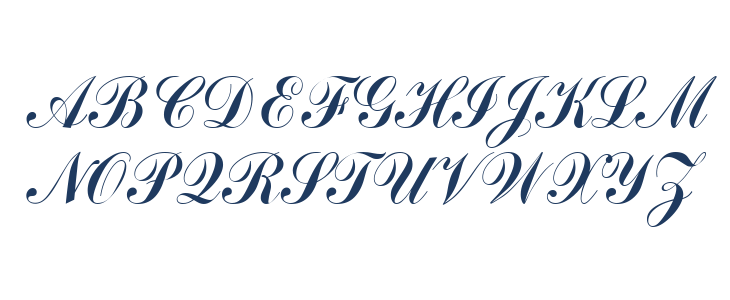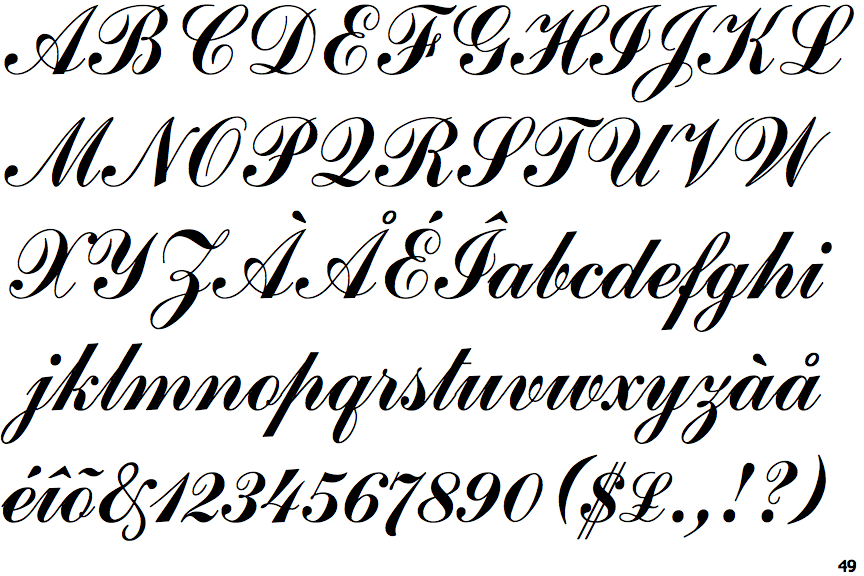
Commercial Script Font Similar. Try, buy and download any typeface from our collection of fonts similar to sg commercial scriptâ„¢ sb. Script typefaces are based upon the varied and often fluid stroke created by handwriting, pretty much like the cursive fonts just typically more elegant.
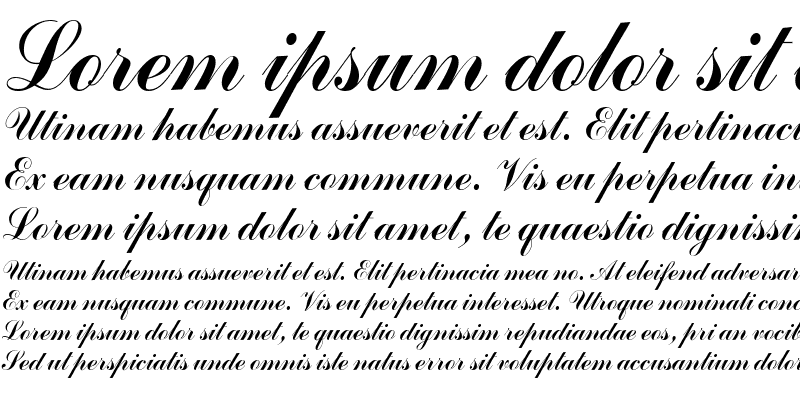
Commercial script (bt) originally designed by morris fuller benton for american type founders in 1908. Most fonts are available for desktop publishing, web and apps. Try, buy and download any typeface from our collection of fonts similar to sg commercial scriptâ„¢ sb.
Commercial Script (Bt) Commercial Script (Urw) Commercial Script (Itc)